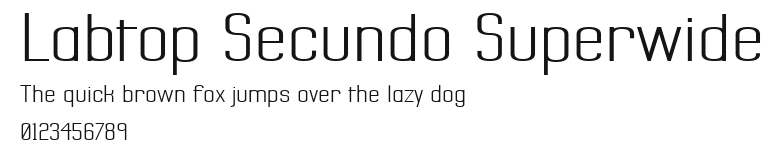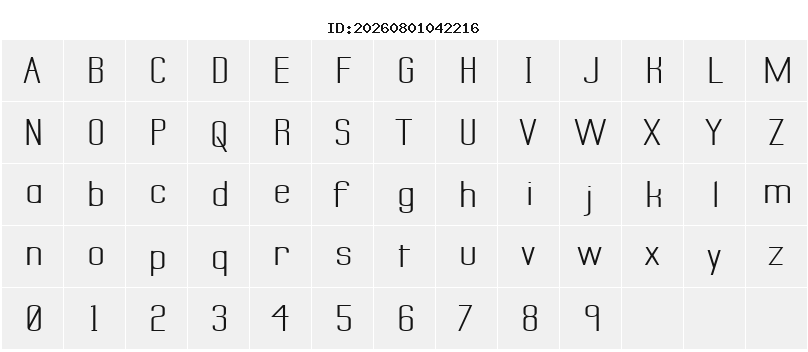
Labtop Secundo Superwide Preview
• Font Name: Labtop Secundo Superwide
• Full Font Name: Labtop Secundo Superwide
About Labtop Secundo Superwide.ttf
Labtop Secundo Superwide.ttf is a modern, elegant sans-serif font designed for ultimate readability and visual harmony. Perfect for branding, headlines, web design, and print materials.